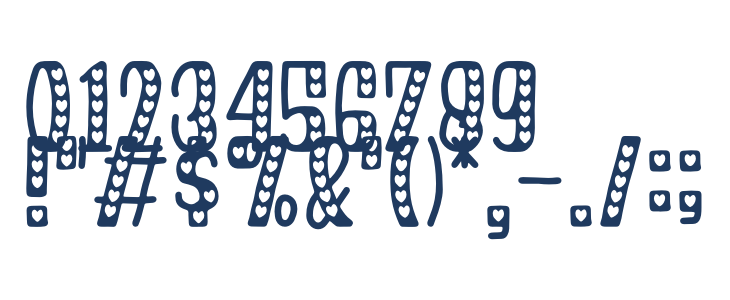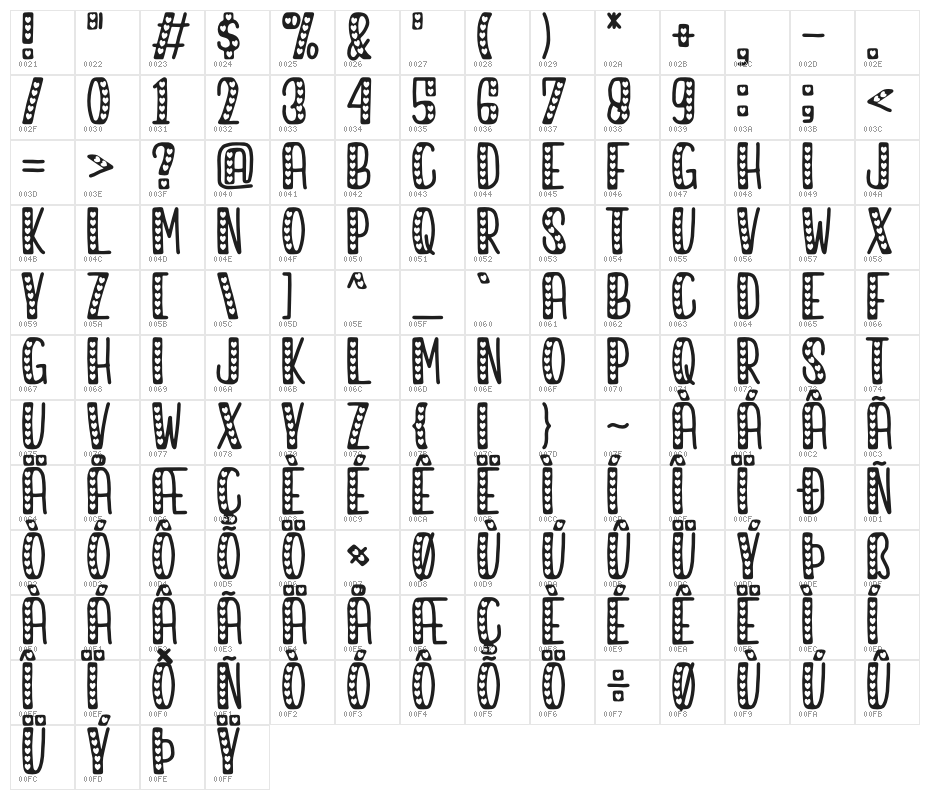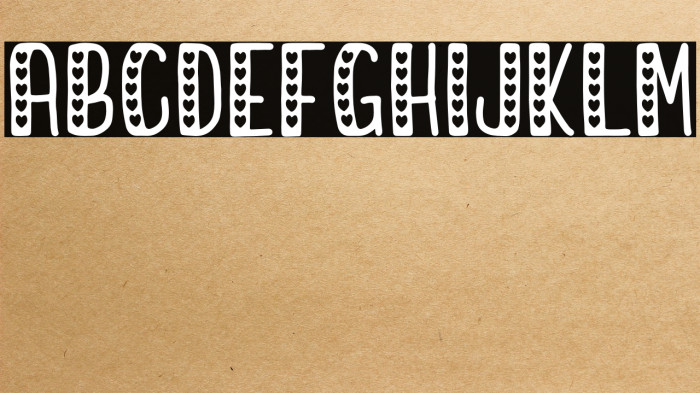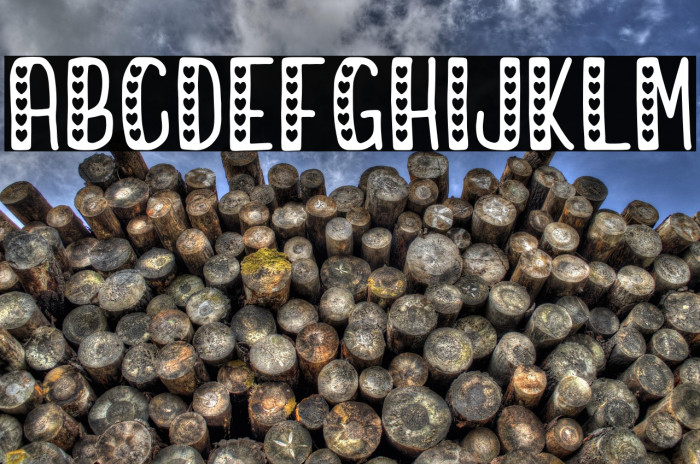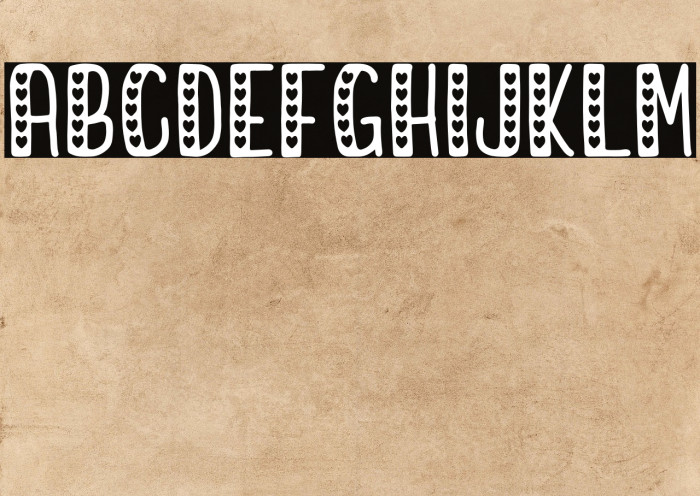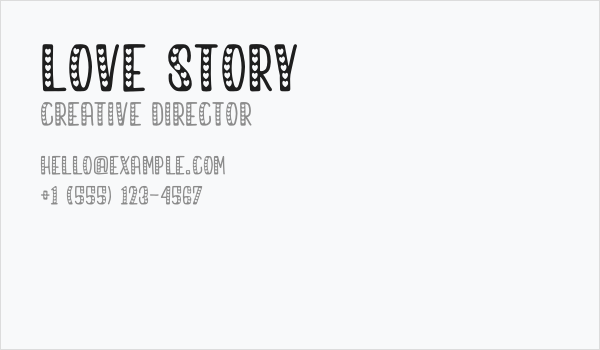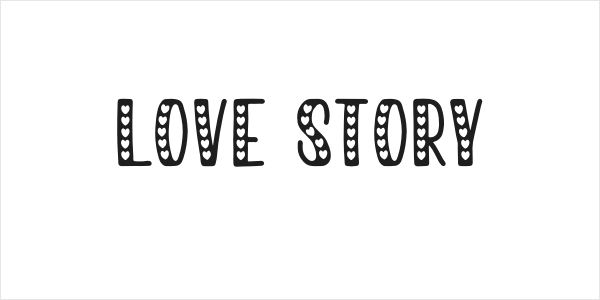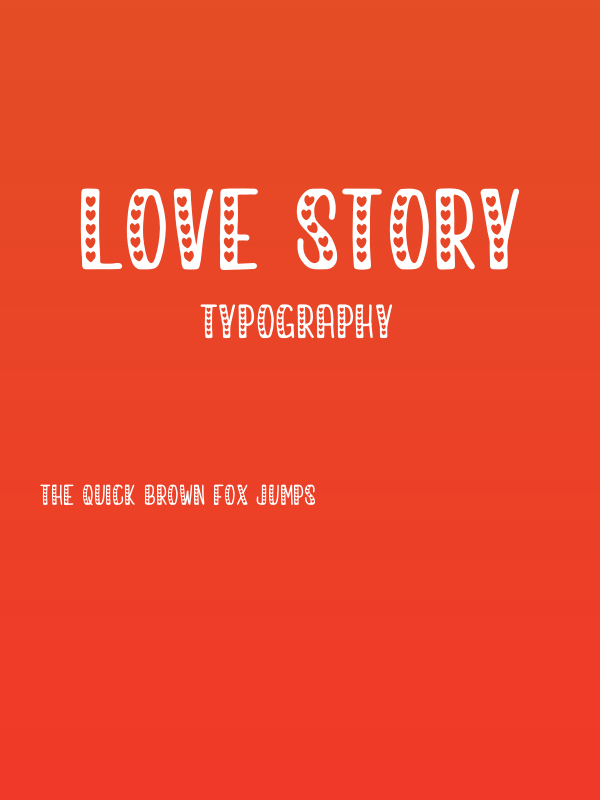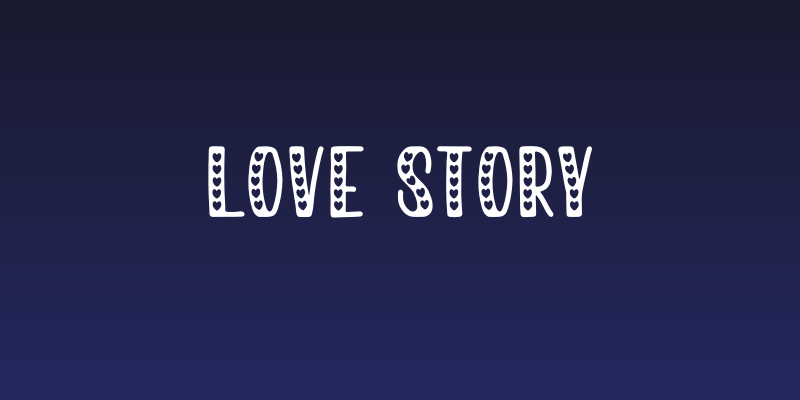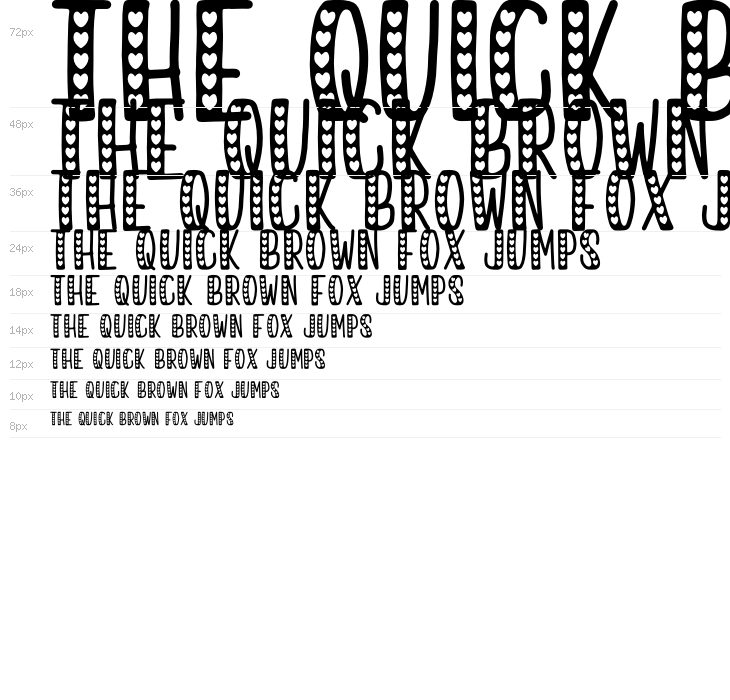
love story Font
love story Description
This playful and charming font features bold, rounded letters filled with heart shapes, creating a whimsical and romantic feel. The uppercase and lowercase letters maintain a consistent style, with smooth curves and a slightly informal touch. The numbers and special characters are designed to match the overall theme, making it ideal for projects that aim to convey love and affection. The font's unique design elements make it stand out, while still being legible and versatile for various creative applications.
| Proposed Projects | Ideal for Valentine's Day cards, wedding invitations, love-themed posters, and playful branding projects. |